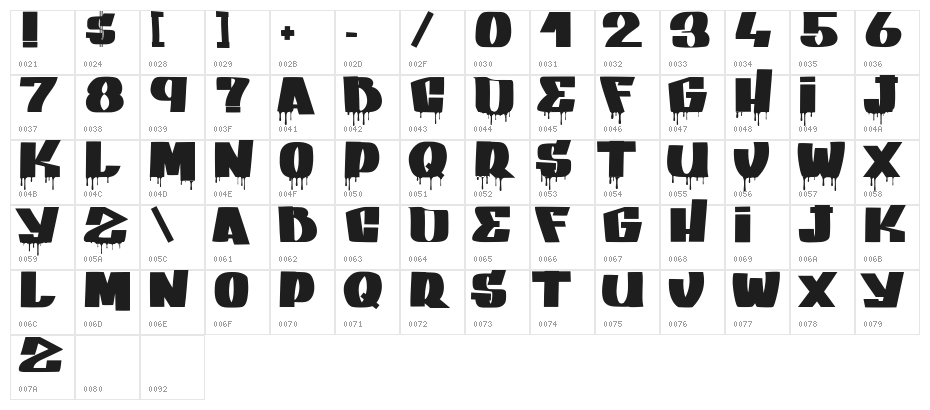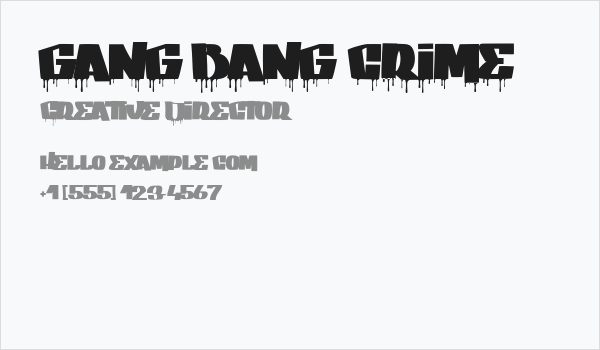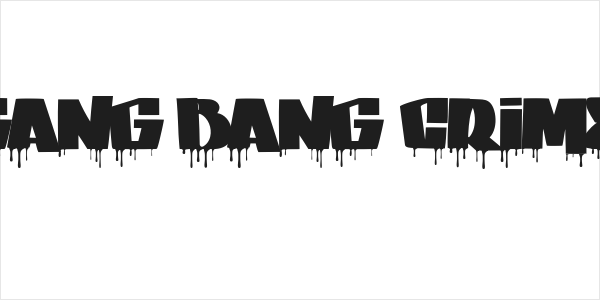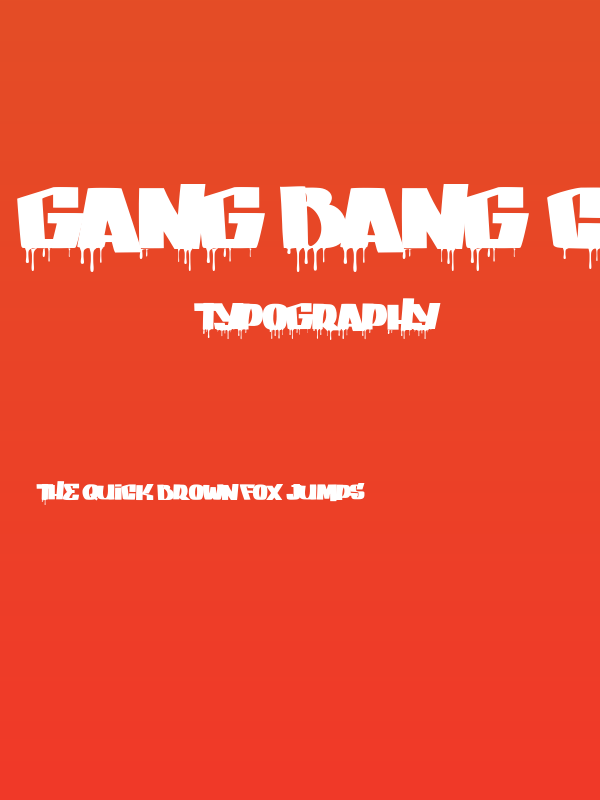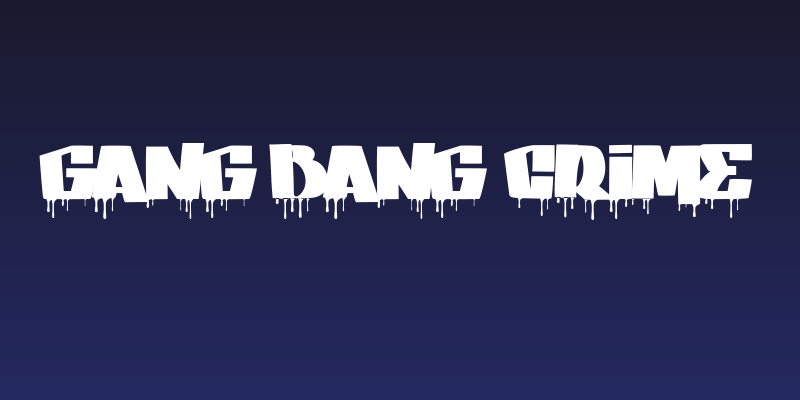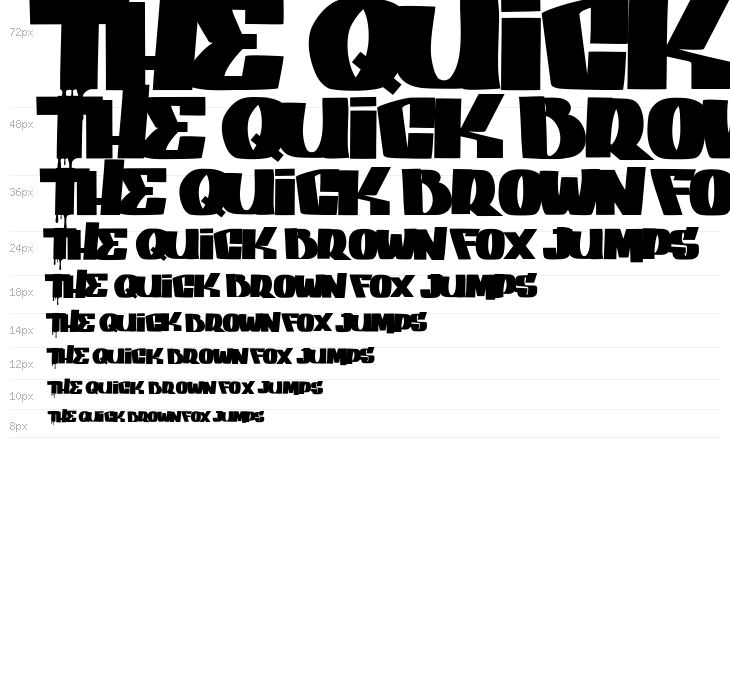
GANG BANG CRIME Font
GANG BANG CRIME Description
This bold and striking font features a unique, graffiti-inspired style with dripping effects on the uppercase letters, giving it an edgy and rebellious look. The characters are blocky and bold, with a strong presence that demands attention. The lowercase letters maintain the same boldness but without the dripping effect, creating a cohesive yet varied appearance. Numbers and special characters are equally bold, with some incorporating creative design elements like slashes and lines. This font is perfect for projects that require a bold statement or an urban, street-art vibe.
| Overall Style | Urban, Edgy, Graffiti |
| Proposed Projects | Ideal for street art designs, music album covers, urban-themed posters, and edgy branding projects. |